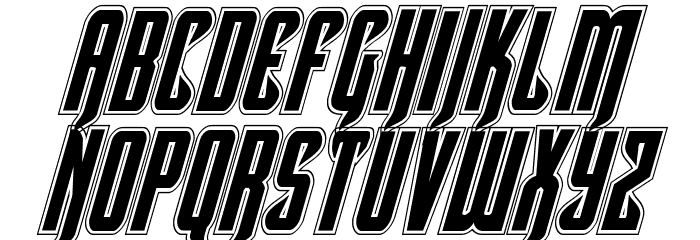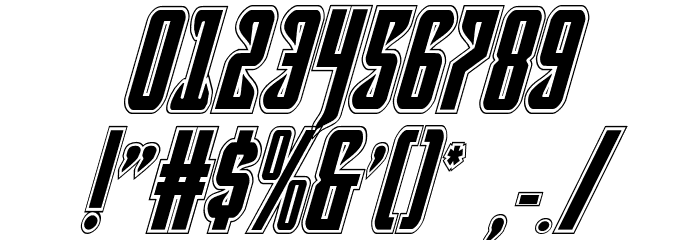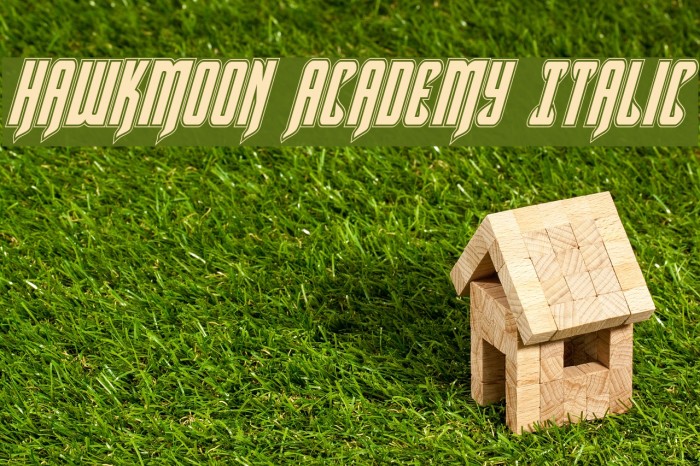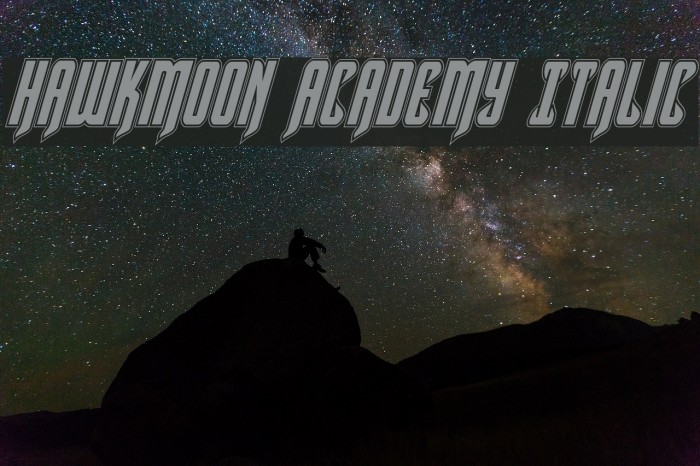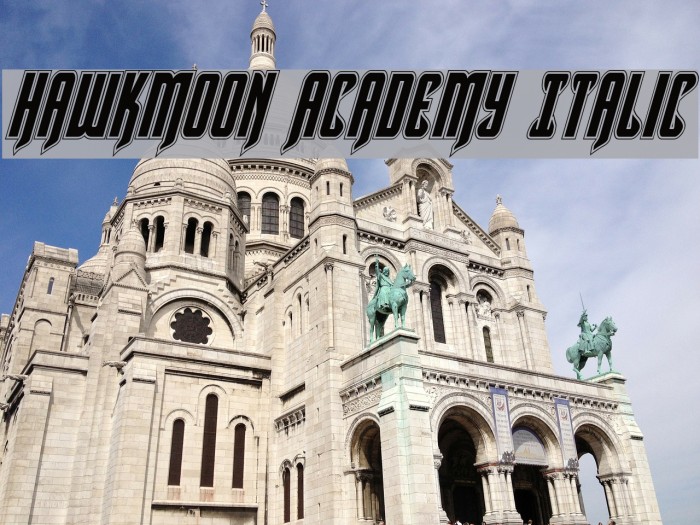
Hawkmoon Academy Italic Font
This font features a bold and dynamic design with a strong italic slant, creating a sense of motion and energy. The characters are outlined with a thick black border, enhancing their visibility and impact. The letterforms are tall and narrow, contributing to a condensed appearance that maximizes space efficiency. The sharp angles and geometric shapes give it a modern and edgy feel, while the italic style adds a touch of elegance and sophistication. The font includes a full set of uppercase and lowercase letters, numbers, and a variety of special characters, making it versatile for different design needs.
A bold, italic, and dynamic font with a modern, edgy style.
- Proposed Projects: Ideal for sports branding, dynamic posters, and edgy graphic designs.
- Character Spacing: Tight